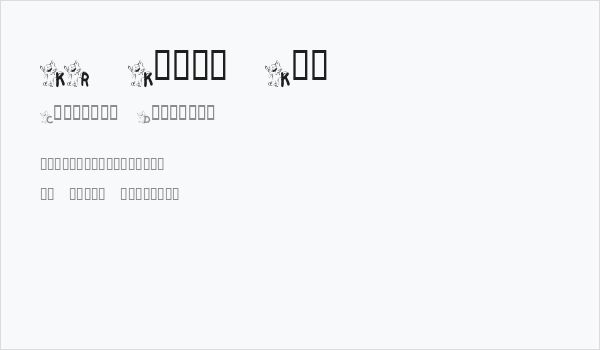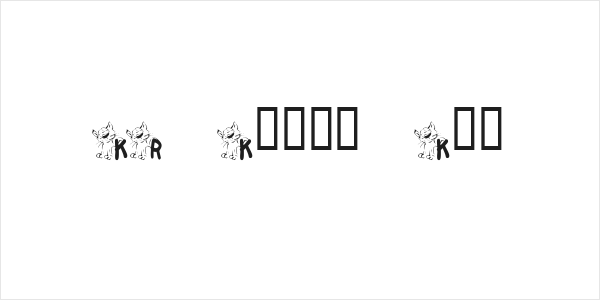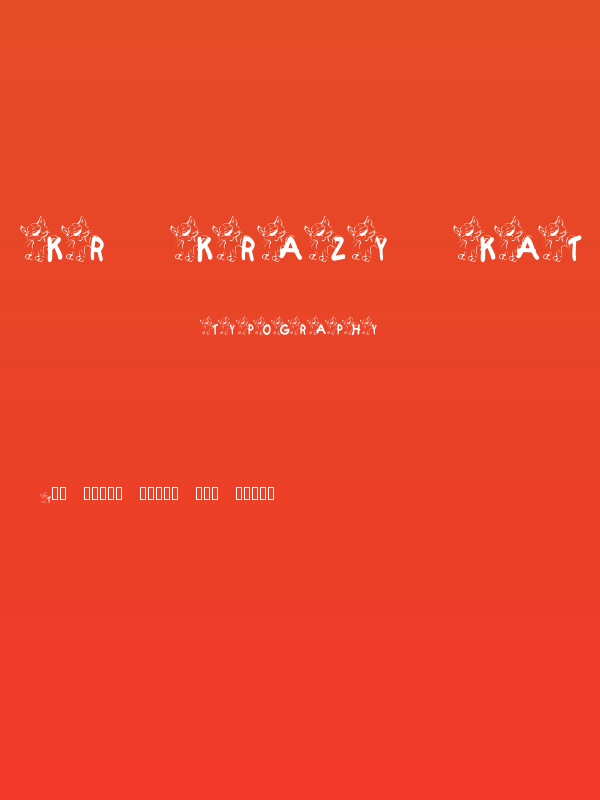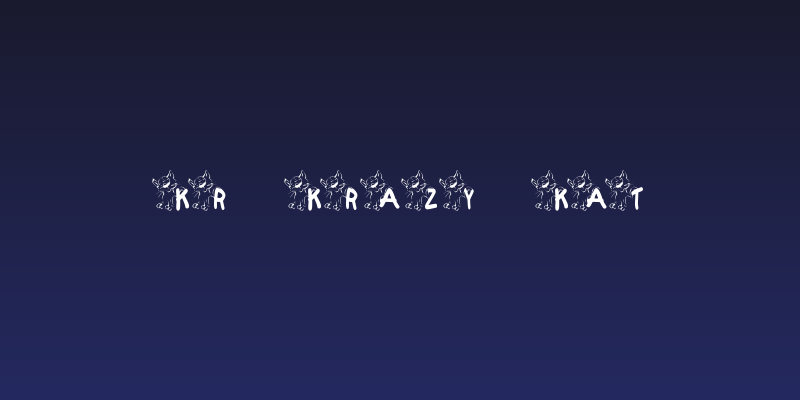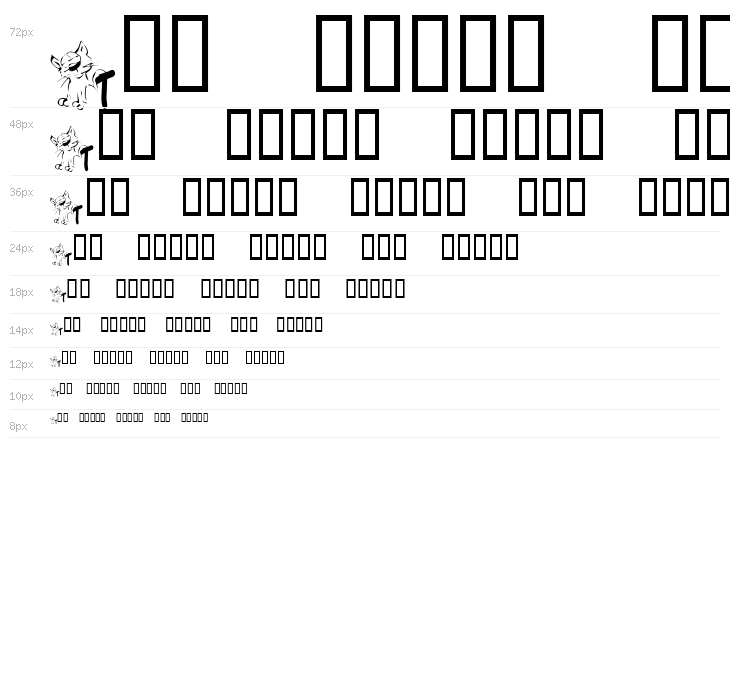
KR Krazy Kat Font
KR Krazy Kat Description
This playful and whimsical font features bold, rounded letters that are accompanied by a charming cat illustration integrated into each character. The design is highly decorative, with each letter standing out due to its unique combination of typography and illustration. The font exudes a sense of fun and creativity, making it ideal for projects that require a lighthearted and engaging visual element. The characters are evenly spaced, ensuring readability while maintaining their distinct artistic flair. This font is perfect for children's books, playful branding, or any project that aims to capture a sense of joy and imagination.
| Overall Style | Whimsical, Playful |
| Proposed Projects | Ideal for children's books, playful branding, greeting cards, and creative posters. |